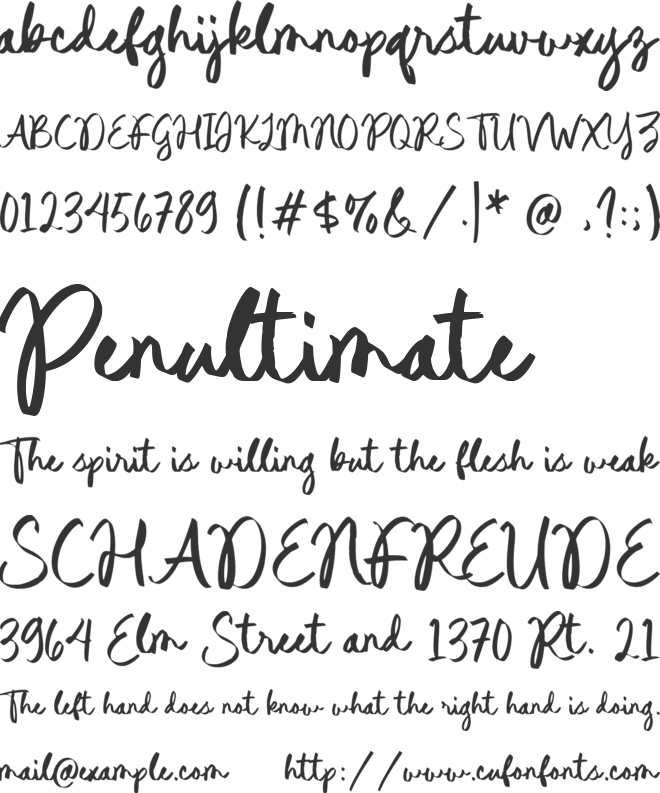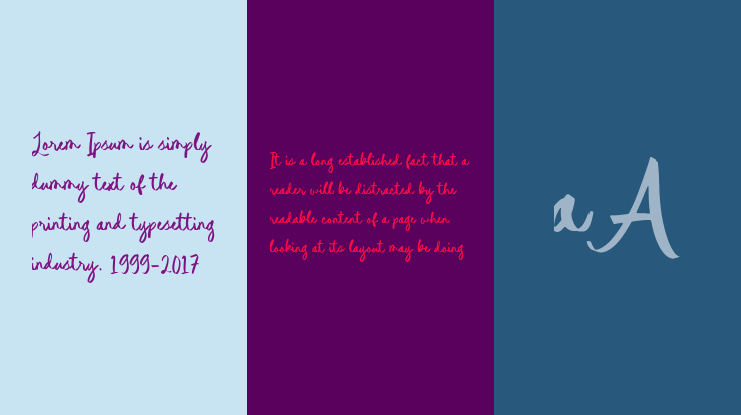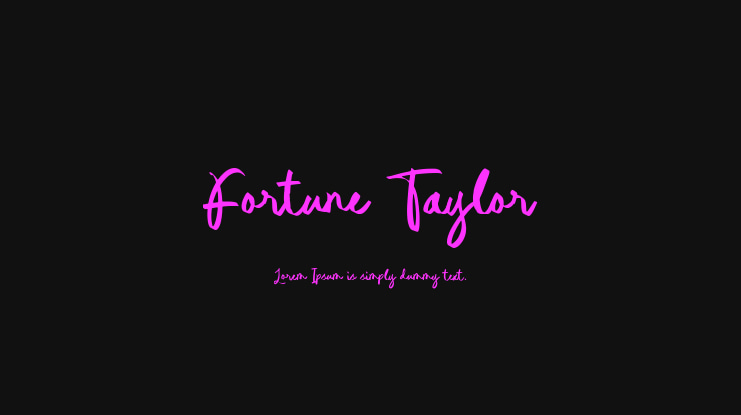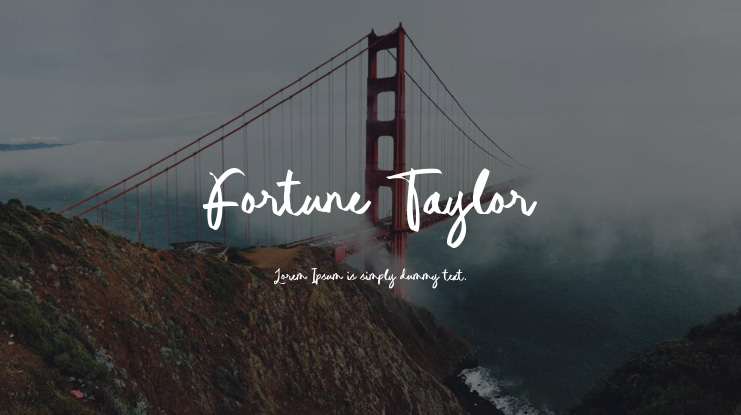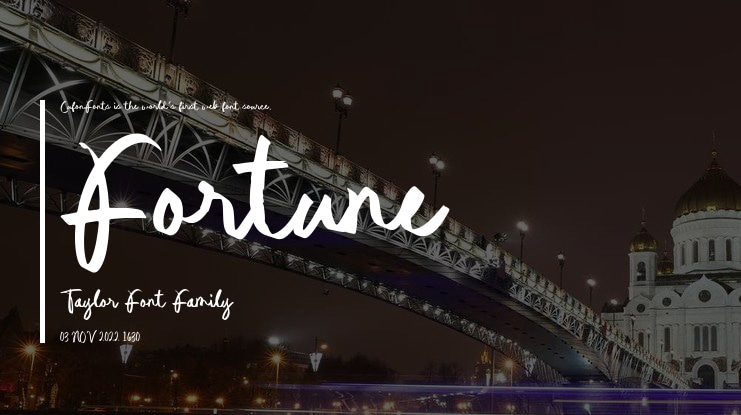
Fortune Taylor Font
Presented by Timurtype Studio, Fortune Taylor is a rustic handwritten font that exudes the charm of artisanal craftsmanship. Its rough and organic strokes emulate the spontaneity of pen on paper, capturing the essence of unbridled exploration. Each letter displays a unique character, inviting you to embrace flaws and appreciate the beauty of handcrafted typography. Ideal for projects seeking a dash of authenticity and vintage appeal, Fortune Taylor enriches logos, signage, and design endeavors, transporting your audience on a nostalgic journey through time and creativity. The font package includes OTF, TTF, and WOFF formats, along with multilingual support. Featuring a full set of standard alphabet and punctuation, Fortune Taylor font embodies premium quality. It is essential to adhere to the Product Usage Agreement when installing or utilizing this font: it is strictly for personal use only; commercial use requires the purchase of a commercial license. For corporate applications, a corporate license must be obtained. Custom licensing options are available upon request. Donations are welcomed and can be made via the provided PayPal link. Browse our diverse font collection at Timurtype Studio website. Thank you for your support.